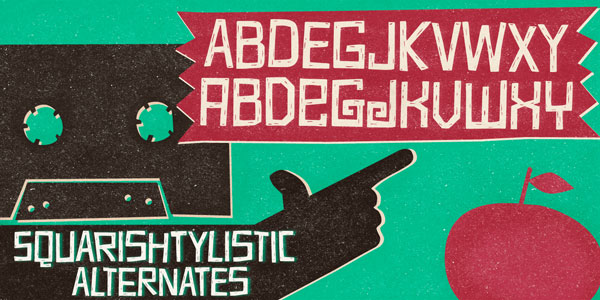
Sabotage – Vintage Poster Font.
The Sabotage typeface is inspired by the legendary Vertigo movie poster by Saul Bass. Font designers Ricardo Marcin and Erica Jung have created this font specially for all kinds of retro and vintage designs. Sabotage’s typeface is bold with a nice handlettered feel and all-caps letters as well as a set of ornaments. Sabotage also includes several stylistic alternates and discretionary ligatures.